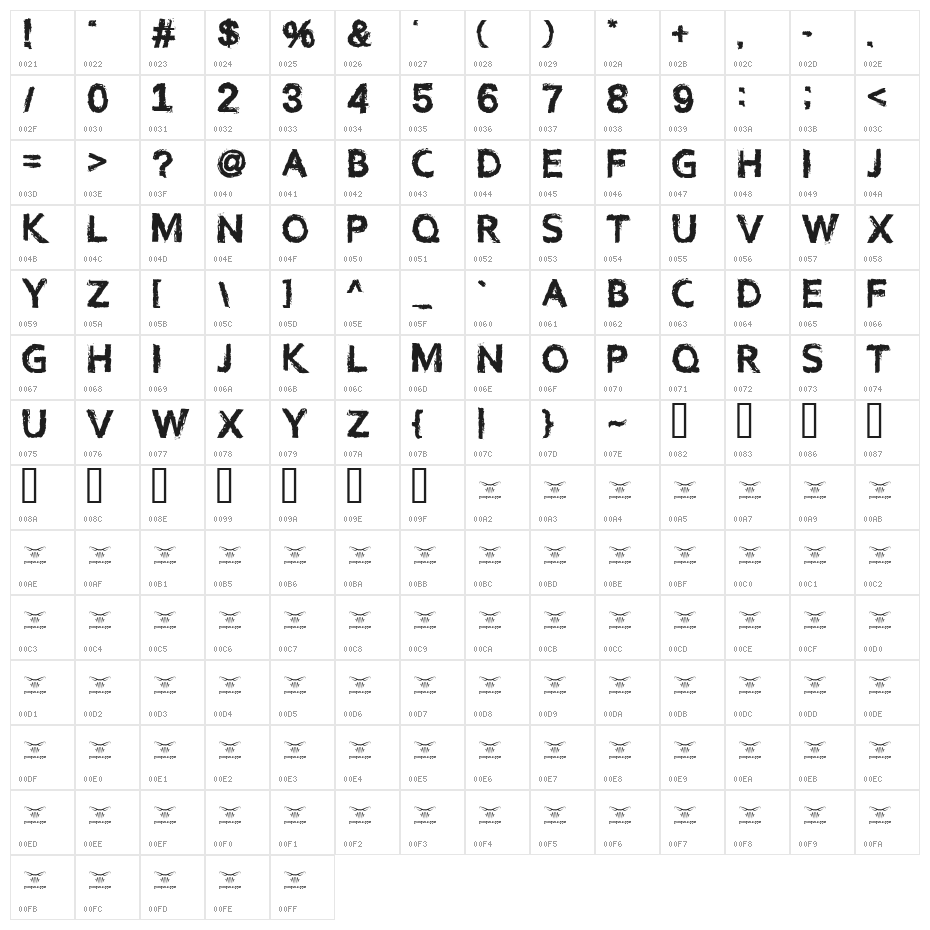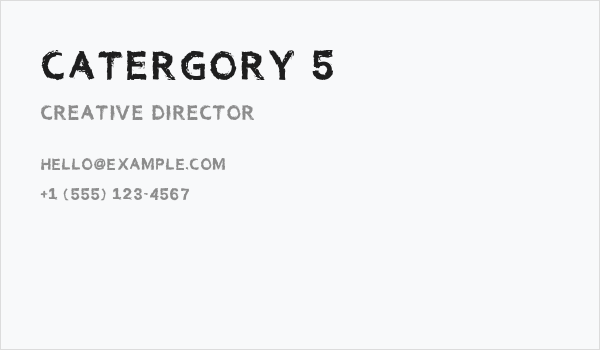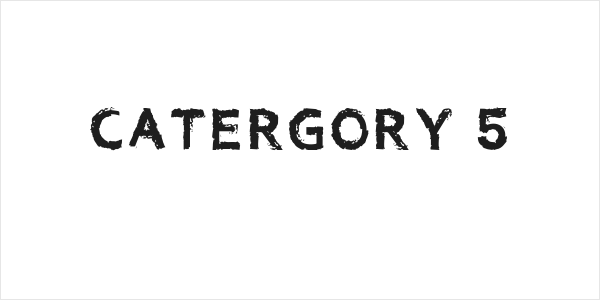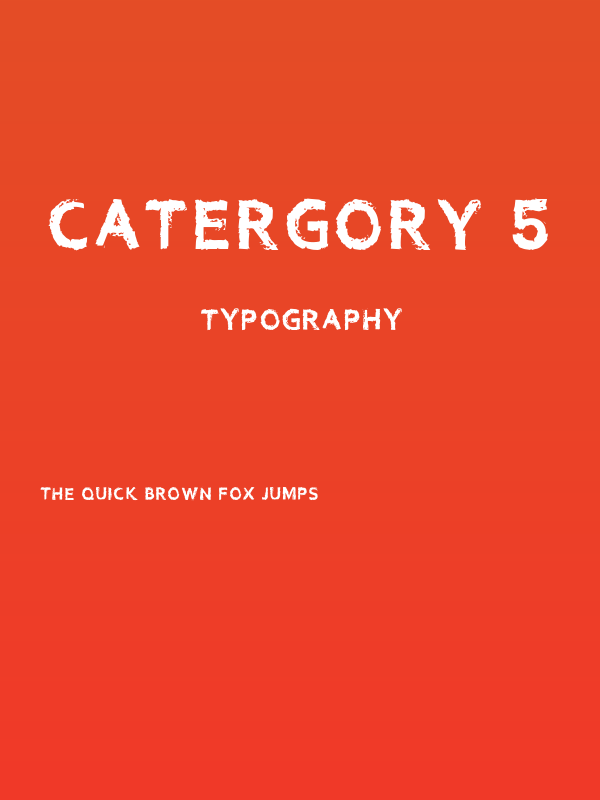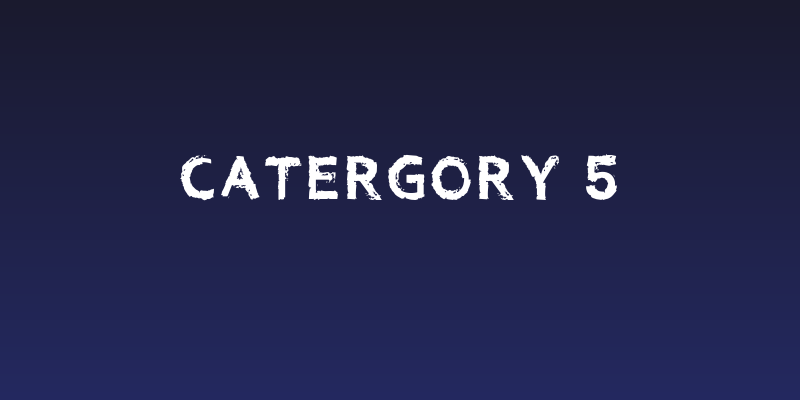
Catergory 5 Font
Catergory 5 Description
This font features a bold and distressed style, characterized by rough, uneven edges that give it a grungy, textured appearance. The uppercase letters are prominent and impactful, making them suitable for attention-grabbing designs. The numerals and special characters maintain the same rugged aesthetic, ensuring consistency across all elements. This font's unique style is ideal for projects that require a raw, edgy look, such as music album covers, posters, or urban-themed branding. Its distinct appearance sets it apart, making it a great choice for creative and unconventional designs.
| Overall Style | Grunge, Edgy, Textured |
| Proposed Projects | Album covers, posters, urban branding, creative designs. |